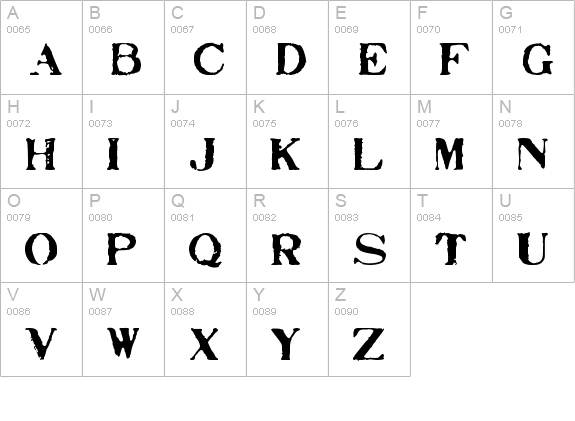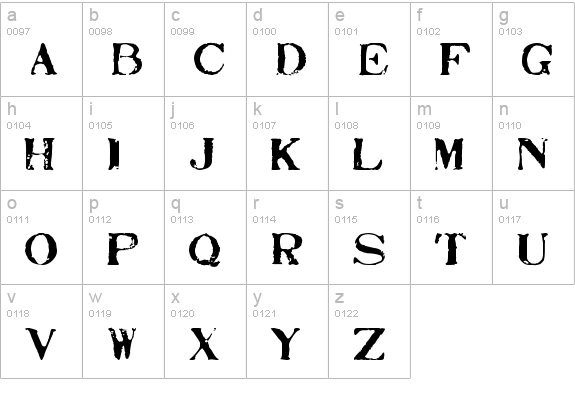
Stamp Act font is a stunning display typeface that captures the essence of vintage stamp designs. Its bold and distinctive letterforms are reminiscent of the stamps used during the historical era, giving your designs a touch of nostalgia and authenticity. With its rough edges and textured appearance, Stamp Act font adds a unique and handcrafted feel to any project. Whether you're working on posters, packaging, branding, or any other creative endeavor, this font will make your designs stand out from the crowd. One of the best features of Stamp Act font is that it is free to download at FontsMarket.com. This means that you can easily access and use this amazing font without any cost or restrictions. Whether you're a professional designer or a hobbyist, having access to high-quality fonts like Stamp Act font can greatly enhance your creative work. In addition to its vintage appeal and availability, Stamp Act font also offers an extensive character set, including uppercase letters, lowercase letters, numbers, punctuation marks, and special characters. This ensures that you have all the tools you need to create captivating and visually appealing designs. Stamp Act font is not only visually appealing but also highly versatile. Its strong and bold design can be used for headlines, titles, or any other text that requires attention-grabbing typography. It is also legible at smaller sizes, making it suitable for body text or captions. In conclusion, if you're looking for a unique and eye-catching font that captures the essence of vintage stamps, Stamp Act font is the perfect choice. It is freely available to download at FontsMarket.com, allowing you to easily incorporate this font into your creative projects. With its rough edges, textured appearance, and extensive character set, Stamp Act font is sure to bring a touch of nostalgia and authenticity to your designs.